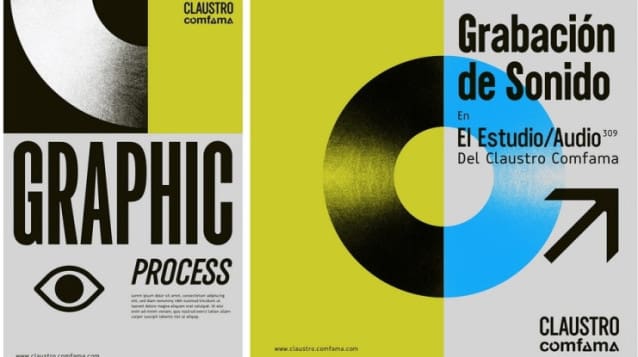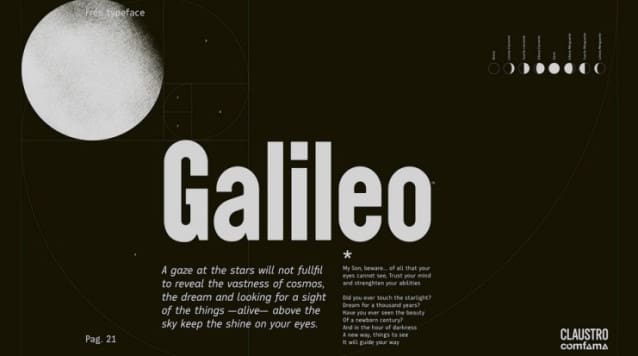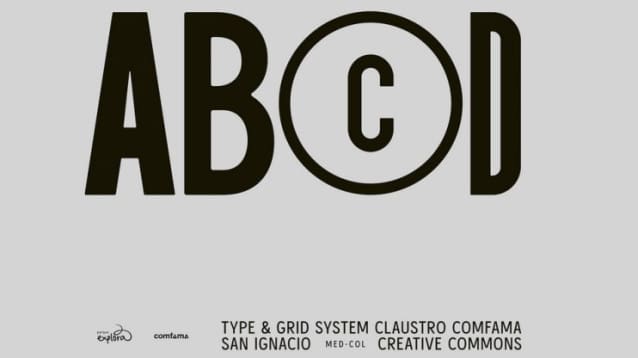
1797 Claustro Comfama Font
1797 Claustro Comfama Font, is a typeface designed within the framework of the architectural and content project renovation of the Comfama San Ignacio Cloister – a heritage space in the center of Medellín that promotes learning for life, broadens views, enriches conversation and transforms realities through social appropriation and the enjoyment of culture – there is the design of the graphic identity that is mainly based on the design of a typographic family to be applied in pieces of communication, archigraphy and signage (Wayfinding).
In line with the vocation and purposes of the Claustro Comfama cultural center project, conceived as a scenario of confluence and resonance that facilitates the circulation and exhibition of artistic creations and cultural practices in dialogue with the city and the world. Each font within the family was constructed individually, evoking the artisanal approach implicit in creating typefaces. The growth in styles is adapted to the needs that arose during the design process of the spaces and the program, including communications, archigraphy, signage and the logo.
Inspiration comes from typefaces such as Grotesque No.9 by Stephenson Blake Typefaces, Seven Line Grotesque by William Thorowgood and Akzidenz Grotesk. Approached in a contemporary manner with minimal modulation, giving it a monoline appearance. Rounded edges have been added to soften the appearance and simulate printed letters, resulting in a friendlier expression.
The central concept of the entire intervention is that of layers or strata that are renewed, superimposed or revealed in history, echoing Humboldt’s image of the layers in the ground. This intervention, which includes typography, embodies the current intentions and spirit, representing a new skin.